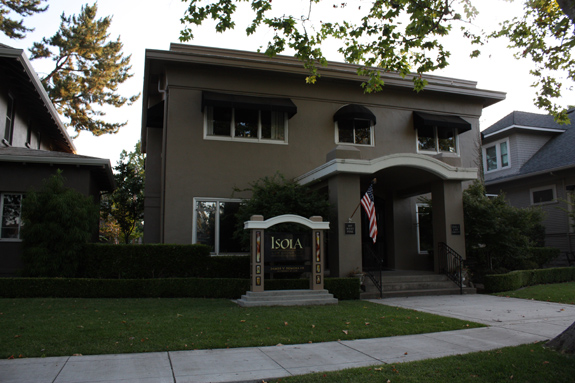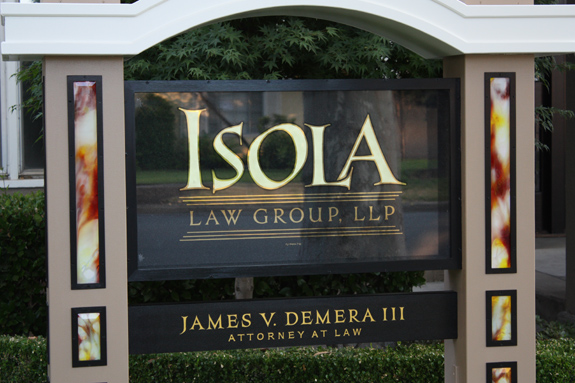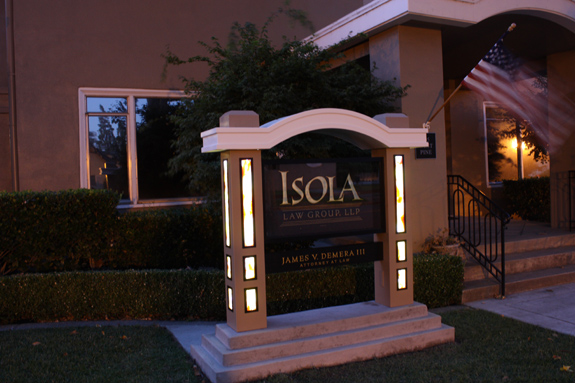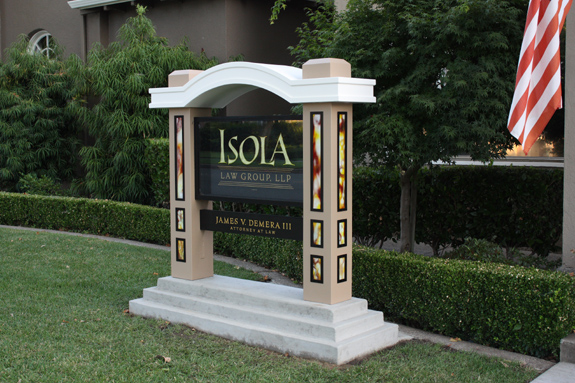
gold & glass monument
If the risks are little, the rewards are little....
Here's a little sign finished and installed.
23K brite line, 18k matte centers, 23k smaller text, reverse 1/4"glass, with a double lami piece of glass in front
black smalts on the inside of the cabinet
entire structure painted with BennyMoore exterior latex
bottom text panel letter with latex and finished with Golden Irridescent Bright Gold paint
beveled glass in pillars, reverse paint and backlit with LEDs
Excellent!
I'm amazed!!!!
Where do you guys EVER come up with such great shapes for your signs???
Wonderfull job.....nice to have a great support team as well.
Fine, pefectly fine.
That's smart of you, spreadin' out the work to others like that...
This sign is a real beauty Tony, and don't forget Danny Baronian's
great fabricating job too.
Say Danny, how did you do the curved arch piece over the sign?
I'm guessing a Signfoam situation.
Very nice Tony! I like the overall design of the structure a lot. Great work by the others too!
Beautiful, just beautiful!
Beautifully executed. Reminds me of an outdoor job done for a bank in the 60's. Only lasted a year due to freeze and thaw climate. Has this work allowed for moisture build-up and possible accumulation of moisture due to temp changes? This is a great concept but may be limited to areas that don't experience severe weather changes. Nevertheless it remains beautiful and an inspiration for those of us who follow this site and appreciate the visionaries amongst us. Bob.
That's one fine looking sign there! Did you have any problems with the sign permit?
Love it Tony, I to was wondering about the moisture issue, is that a sealed frame the glass is set in? In any case, it is well suited to the building, love the way you mimicked the entrance including the steps. On the bevel glass, I'm assuming you use a transparent paint colour and back it up with transparent white (like the way we used to do backlit faces). Tony Shes a beaut...Pat.
Absolutely beautiful Tony !
Gettin back to the beginning of my story....
the shape, Joe, was based of the building entry, of course.
the material, Mark, was entirely PVC, except for the glass,
helps to have a fellow letterhead in the biz with a computer router and
a background in furniture and cabinet making, Danny Baronian,
he's one fine builder
we discussed holes for moisture buildup... Dan did an excellent job of allowing holes at the bottom of the cabinet, with fine mesh screens to keep the intruders out
Pat, the colors in the glass were thinned transparent screen inks and backup silver (white), drizzled onto the glass, all together, which was pre-flowed with mineral spirits,
allowed to flow together, with a little assistance by rotating the glass, then kept level overnight
Superb work Tony! missed this post.
Clever idea with all the components.